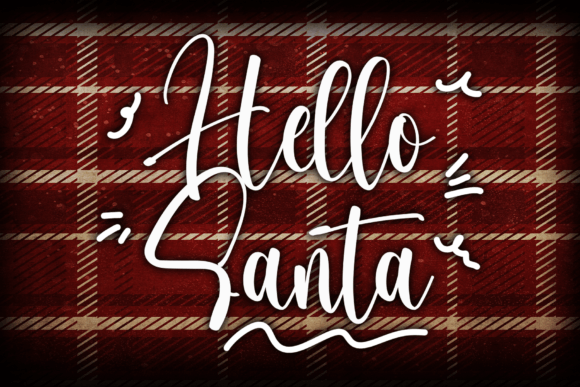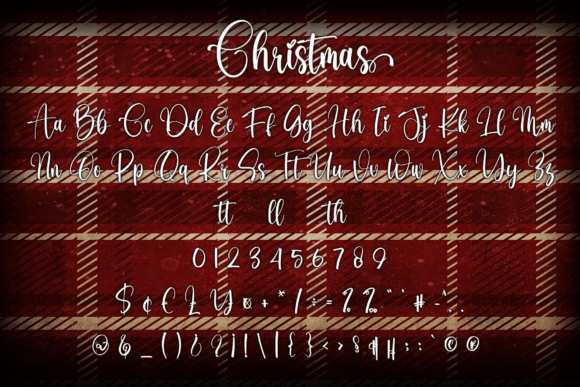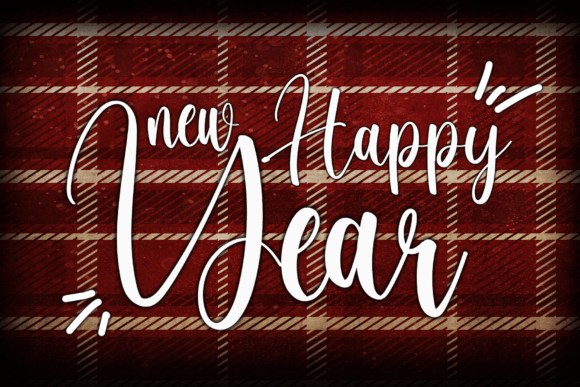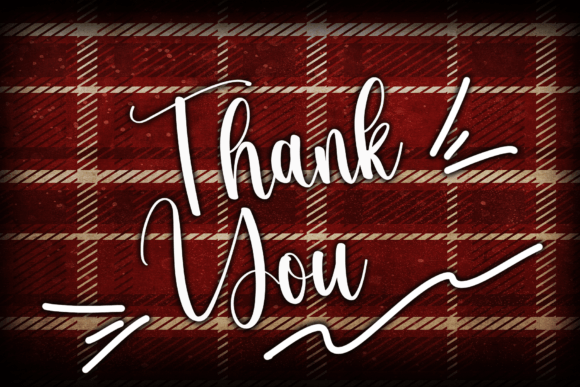
Introducing Christmas Holly Font: A Timeless Classic for Your Holiday Projects
As the holiday season approaches, designers and crafters are on the lookout for the perfect font to add a touch of elegance and sophistication to their Christmas-themed projects. Look no further than the Christmas Holly Font, a stylish handwritten font that exudes a contemporary atmosphere and impeccable form. Inspired by timeless classic calligraphy, this font is sure to become a staple in your design library.
What is Christmas Holly Font?
Christmas Holly Font is a beautifully crafted handwritten font that is both balanced and varied. Designed to enhance the beauty of your projects, this font is perfect for a wide range of applications, from holiday cards and invitations to festive packaging and web graphics. With its classic yet modern feel, Christmas Holly Font is sure to add a touch of sophistication to any design.
Key Features of Christmas Holly Font
- Handwritten style: Christmas Holly Font boasts a beautiful, handwritten style that is both elegant and approachable.
- Contemporary atmosphere: Despite being inspired by classic calligraphy, this font has a distinctly modern feel that will make your designs stand out.
- Impeccable form: The font’s balanced and varied design ensures that it is both visually appealing and easy to read.
- Multilingual support: Christmas Holly Font supports multiple languages, making it a versatile choice for designers working on international projects.
Why Choose Christmas Holly Font?
So why choose Christmas Holly Font for your holiday projects? Here are just a few reasons:
- Unique and eye-catching: This font’s distinctive style is sure to grab attention and set your designs apart from the crowd.
- High-quality design: The font’s impeccable form and attention to detail make it a high-quality choice for any design project.
Christmas Holly Font is a stylish and versatile handwritten font that is perfect for adding a touch of elegance and sophistication to your holiday projects. With its classic yet modern feel, impeccable form, and ease of use, this font is sure to become a staple in your design library. Whether you’re a designer or crafter, Christmas Holly Font is a must-have for any holiday design project.